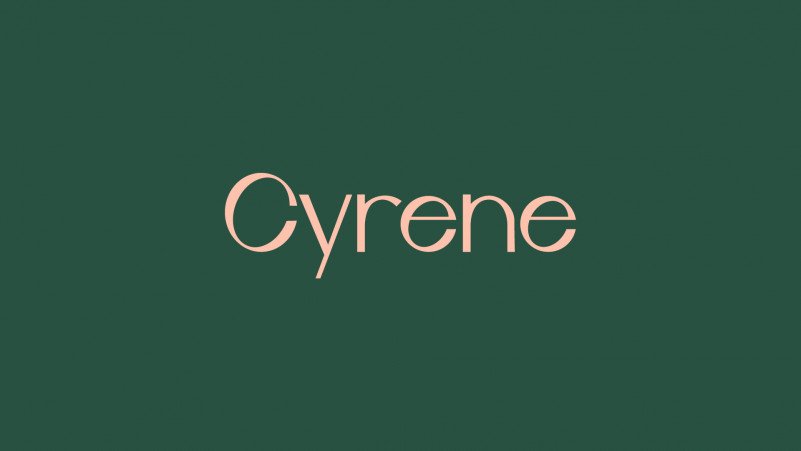
Cyrene Free Font
Cyrene Free Sans Serif Font
Cyrene is a high quality Sans and Display font that is designed by Riccardo Agostinelli and is available for free download personal & commercial use. The free version provides all uppercase and lowercase letters and a few special characters too.